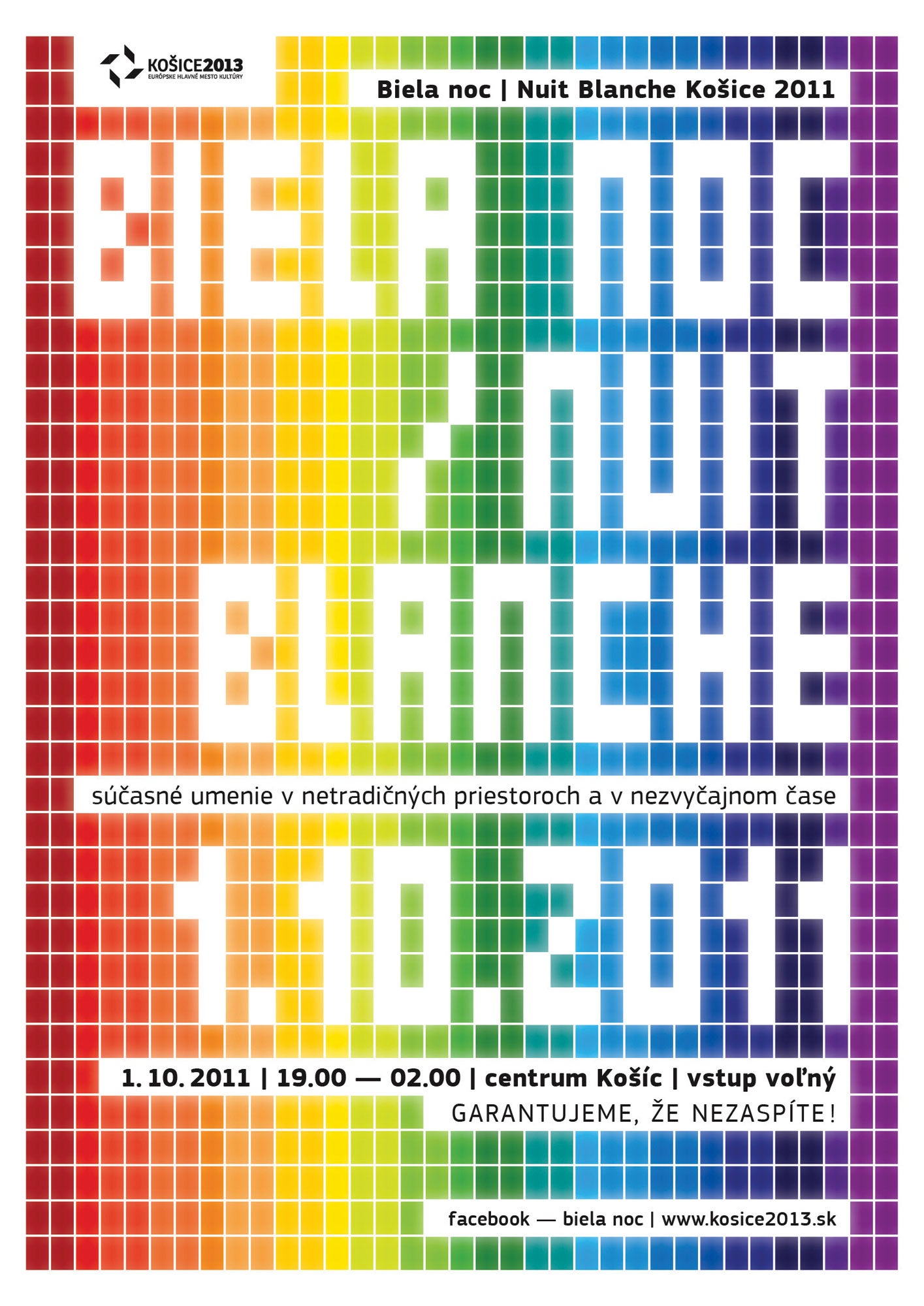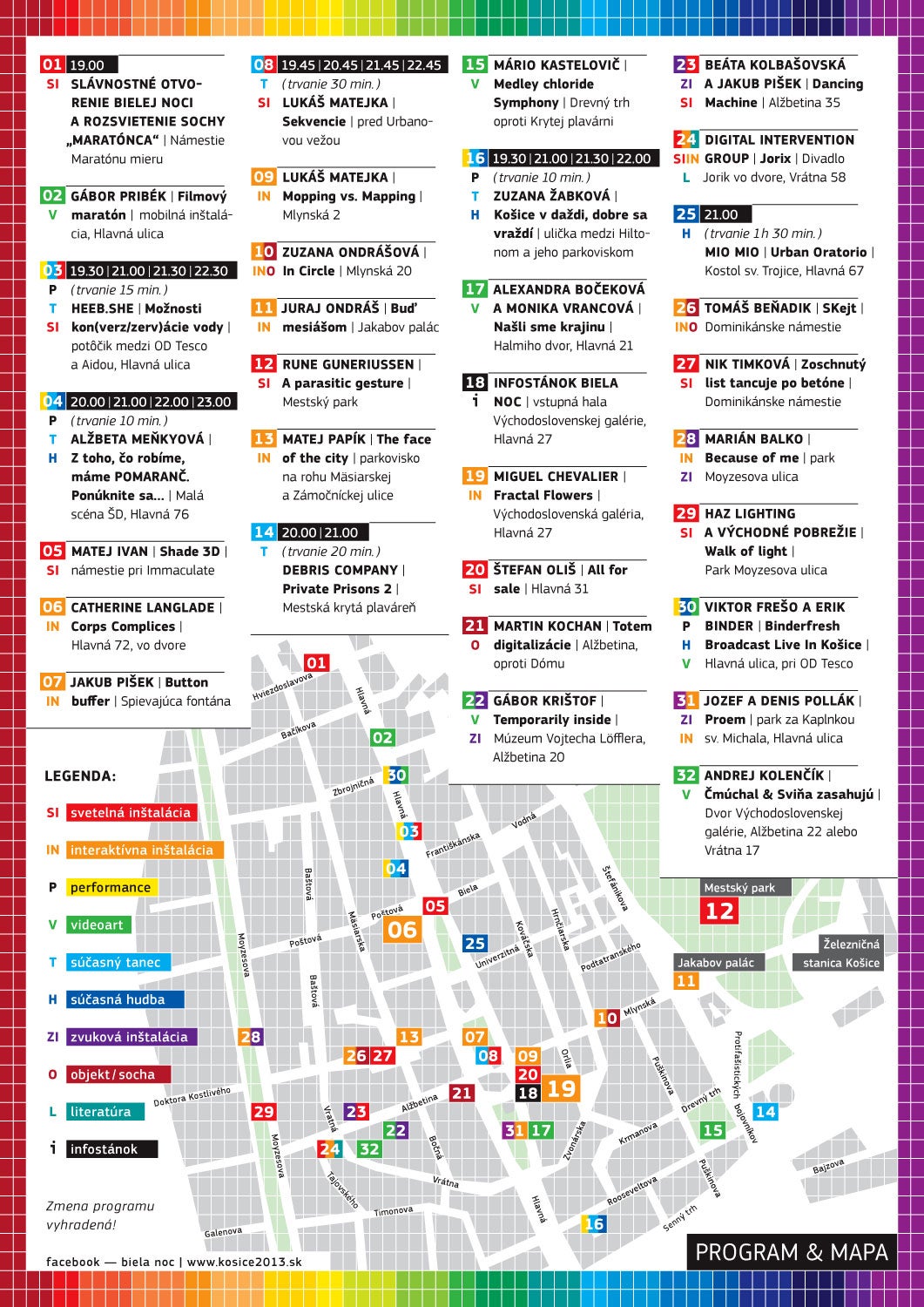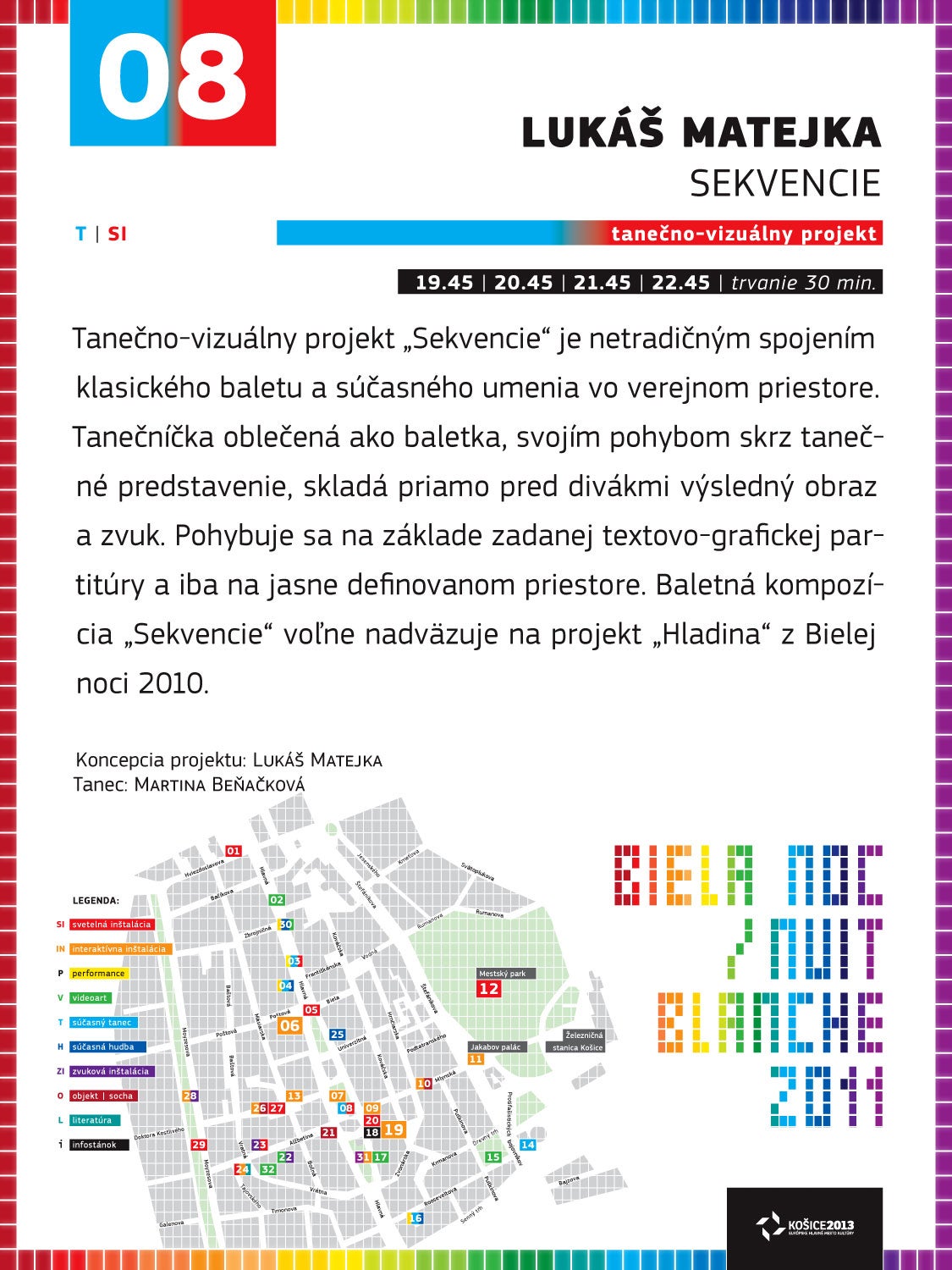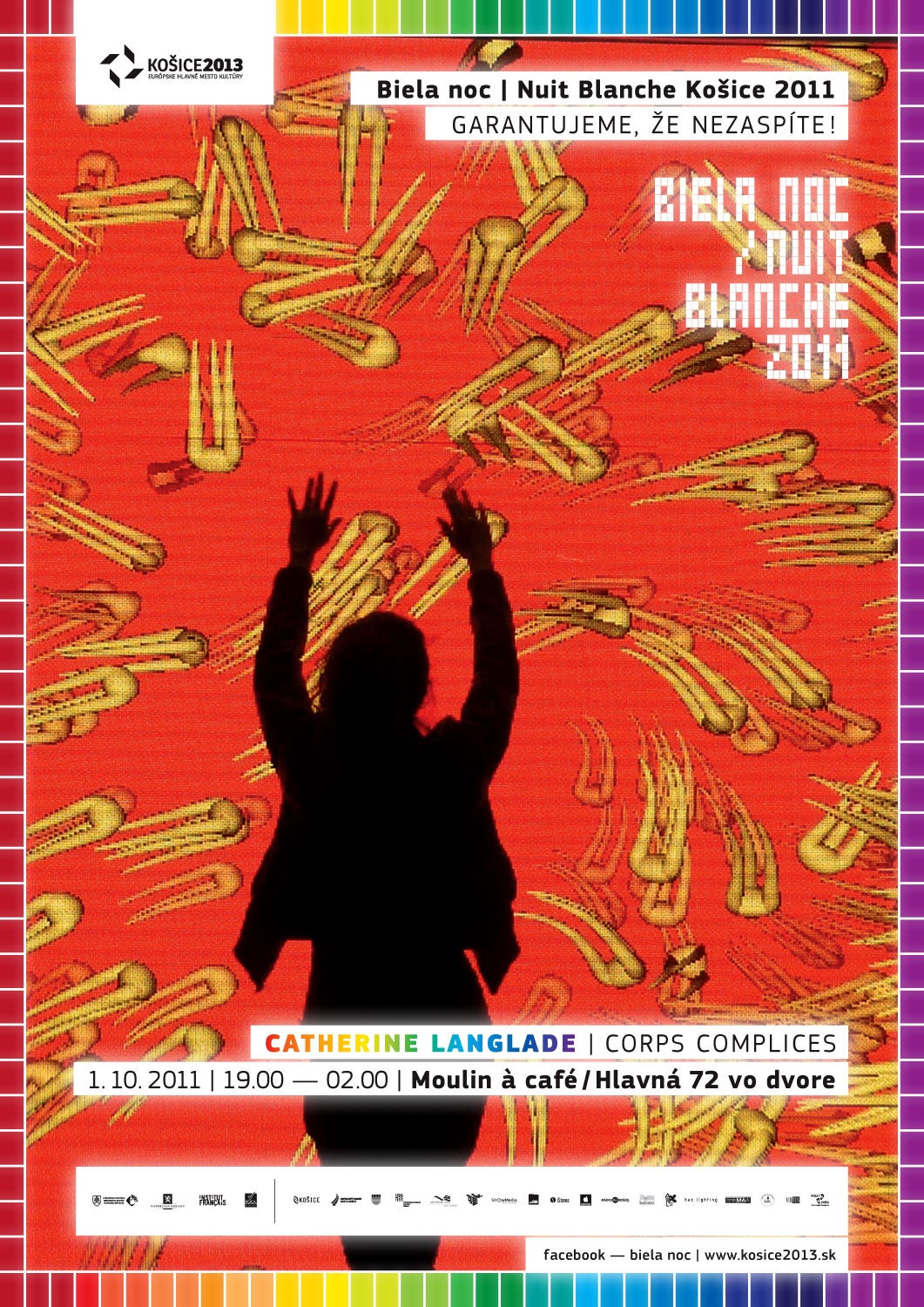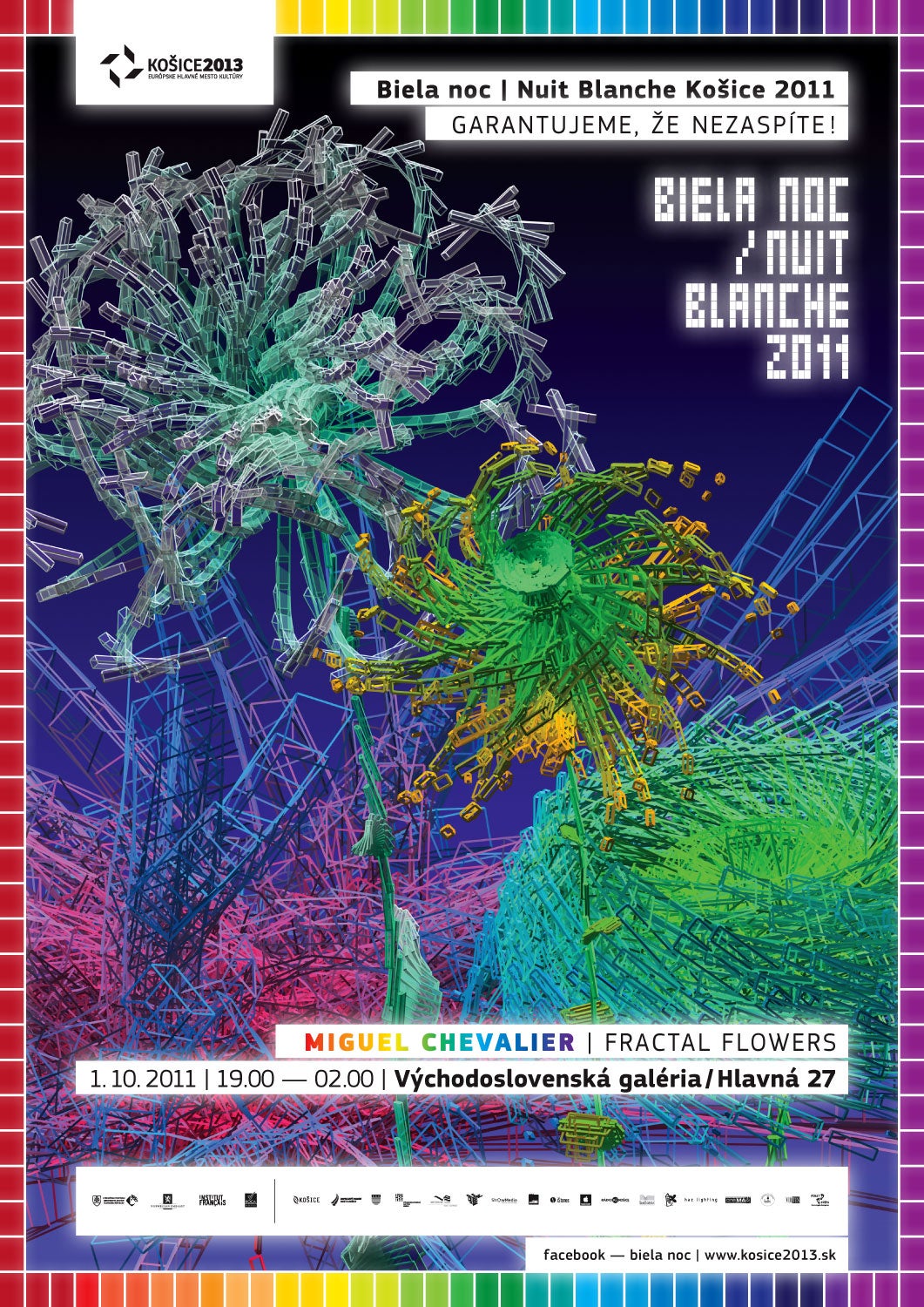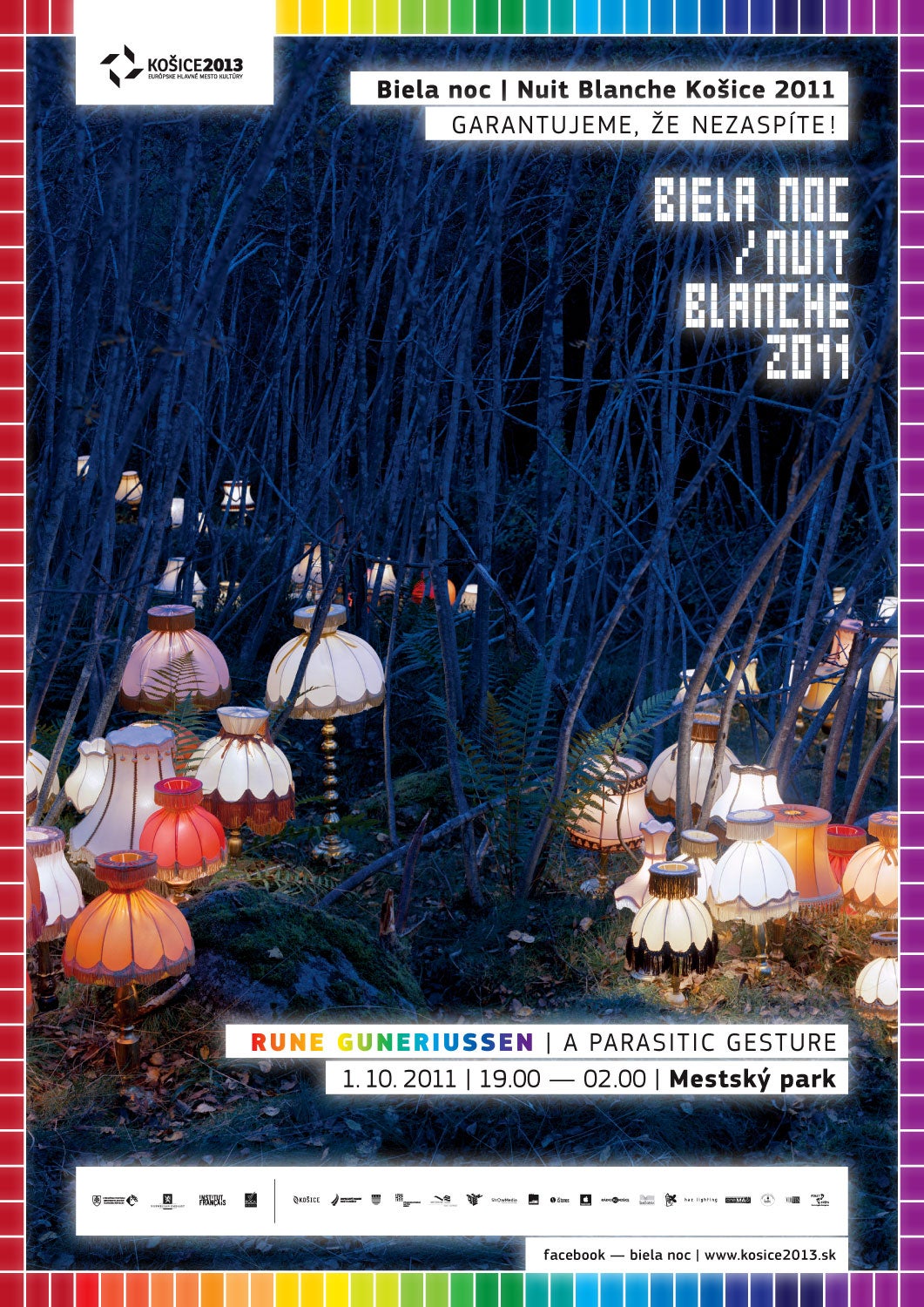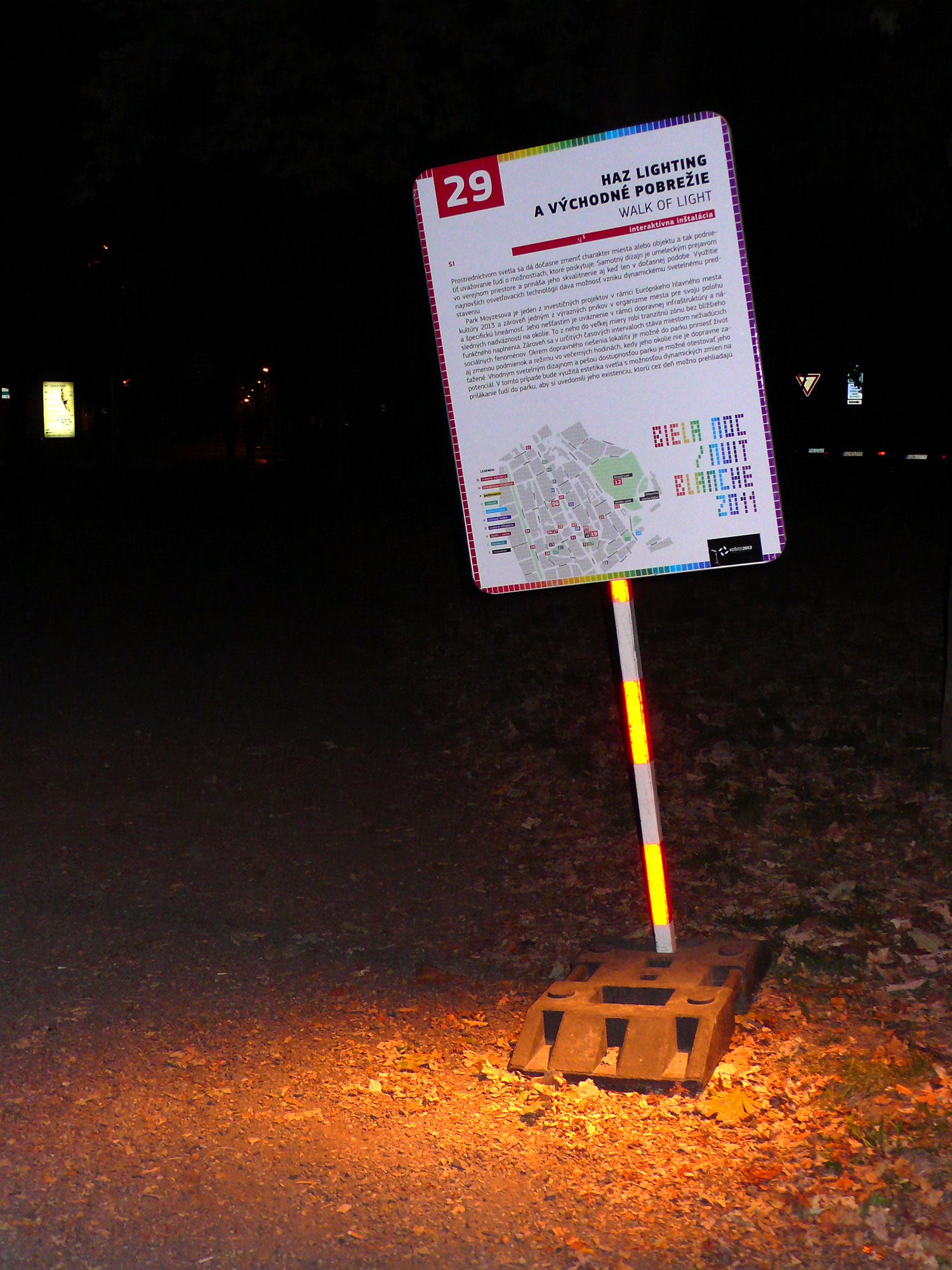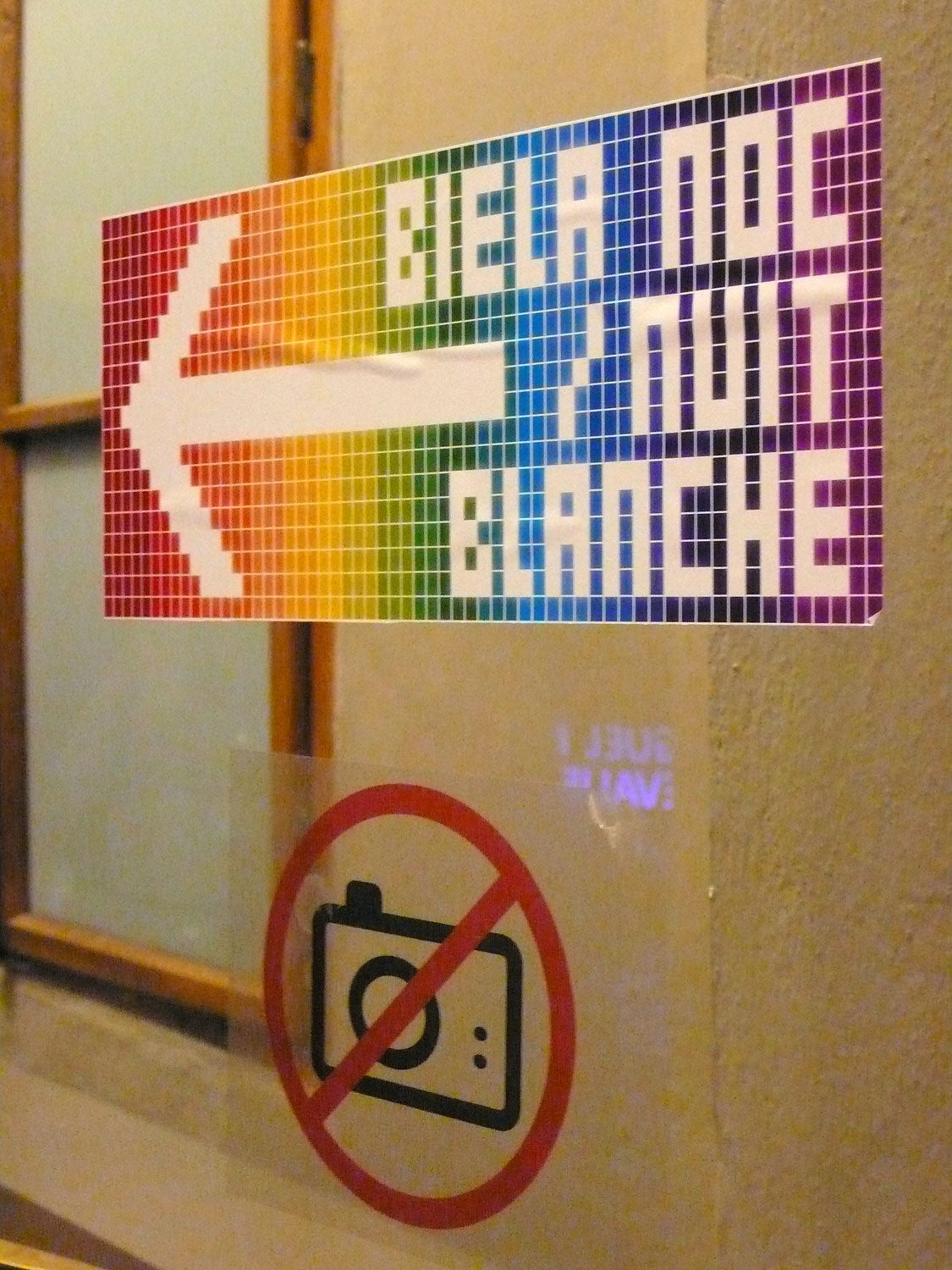
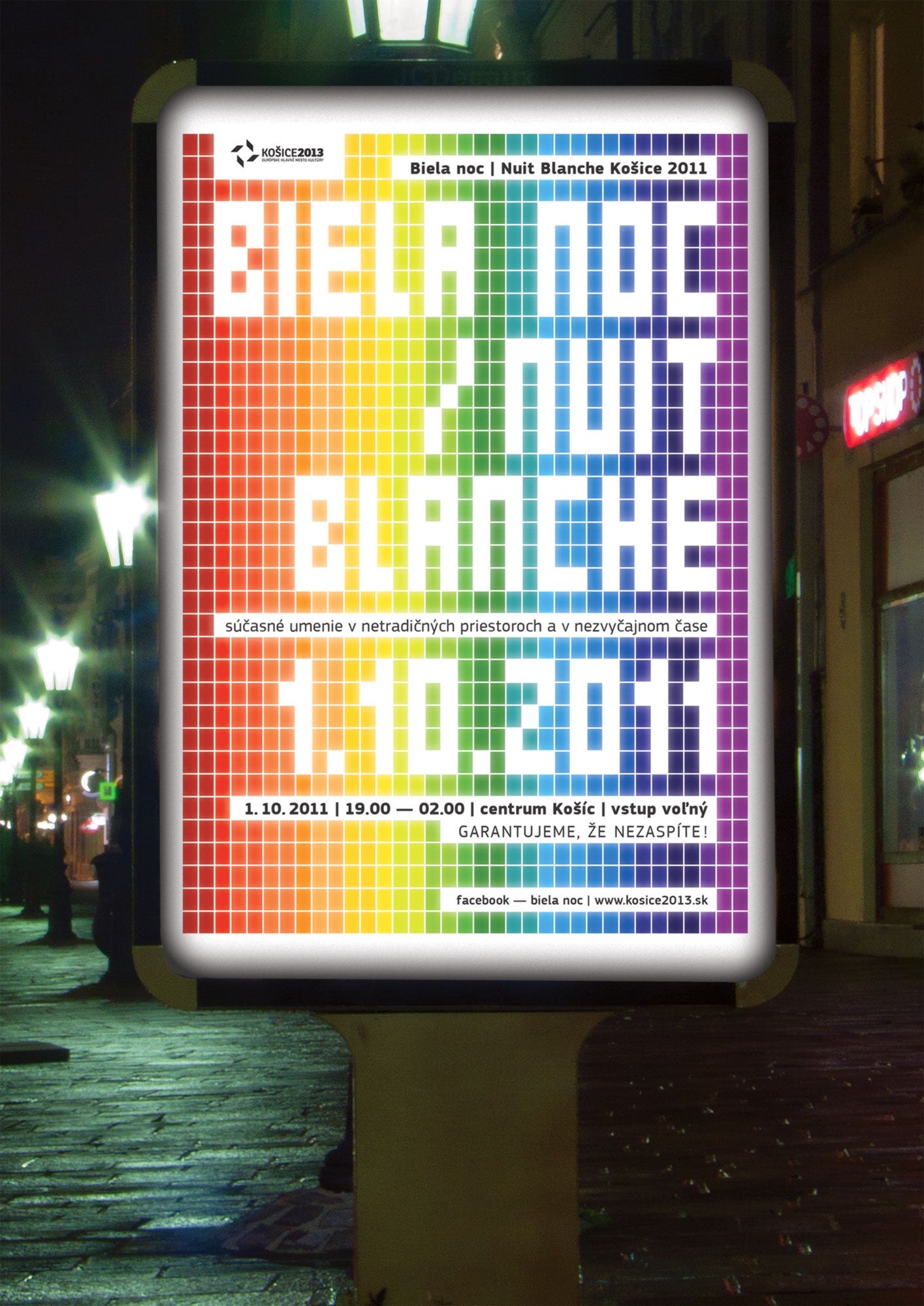
The festival Biela Noc (White Night), held during a single night of the first weekend in October, focuses mainly on light art and interactive installations at various unconventional places and public spaces within the city. The visual identity for the particular year of the festival uses the theme of light decomposed into the colour spectrum and a combination of LCD typography, as a symbol of the current digital era. a visual that is hard to miss and easy to remember, its modularity makes it easy to use in different media and outputs.